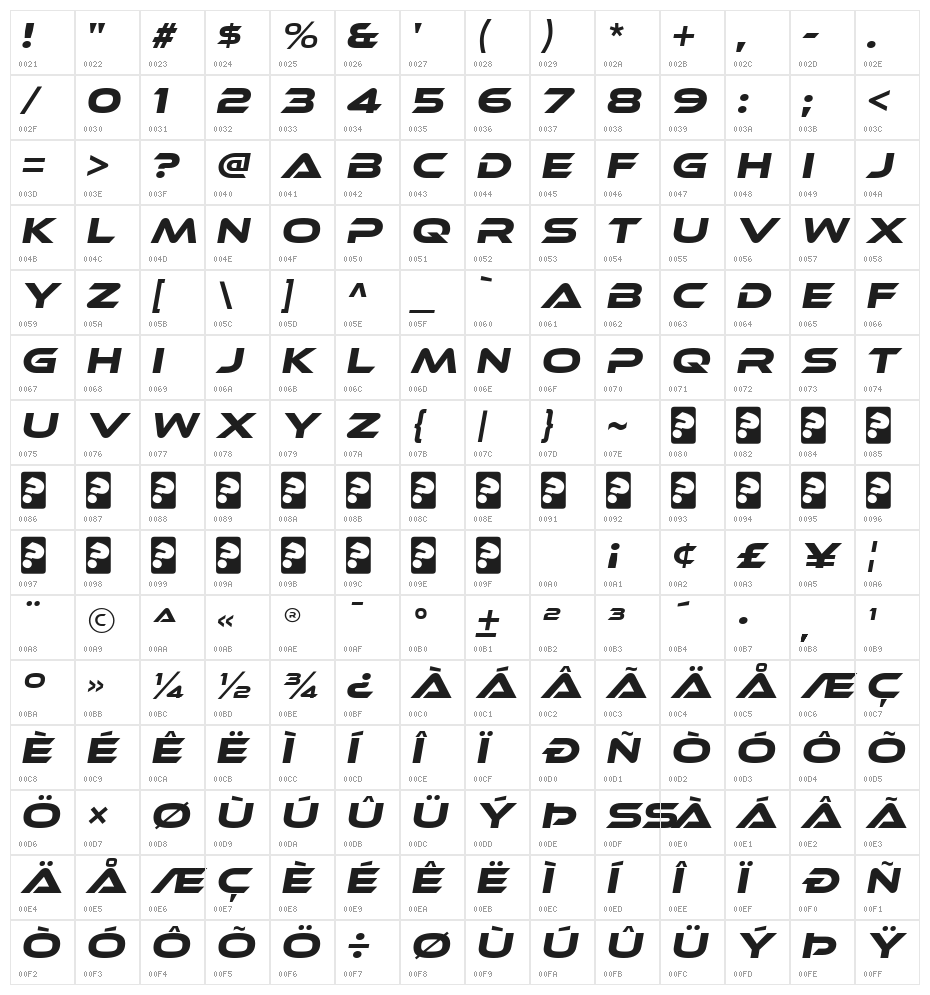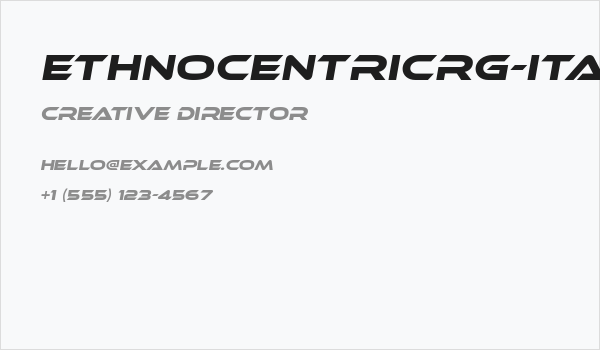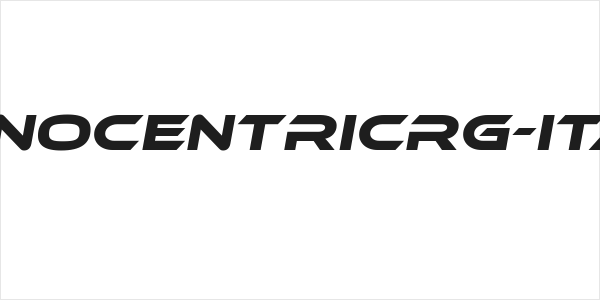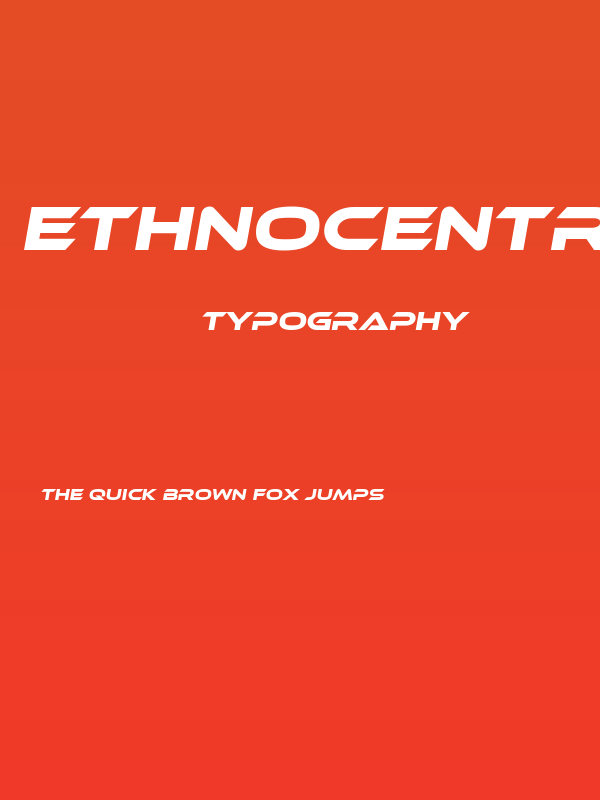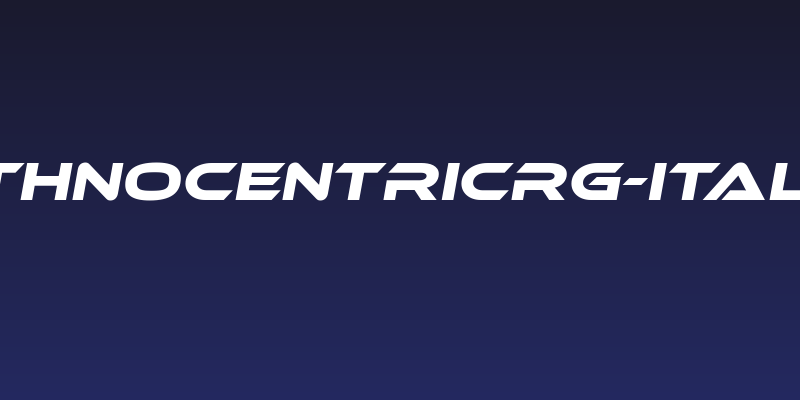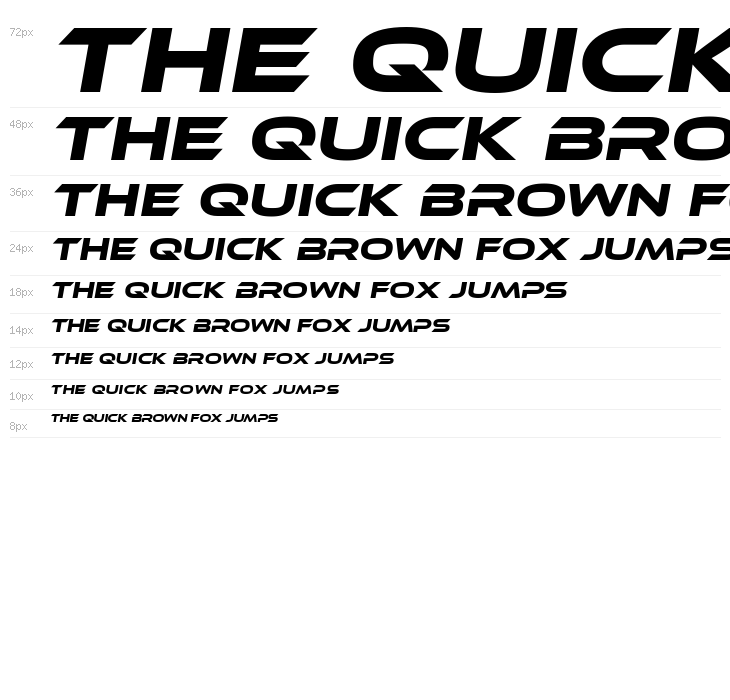
EthnocentricRg-Italic Font
EthnocentricRg-Italic Description
This font exhibits a bold and dynamic style with a distinct italic slant, giving it a sense of motion and energy. The characters are angular with sharp edges, creating a futuristic and modern appearance. The uppercase and lowercase letters maintain a consistent design, while the numerals and special characters complement the overall aesthetic. The font's boldness and unique style make it stand out, suitable for attention-grabbing designs.
| Proposed Projects | Ideal for sports branding, technology logos, video game titles, and dynamic posters. |